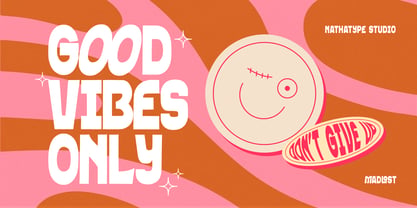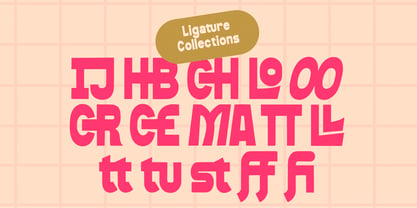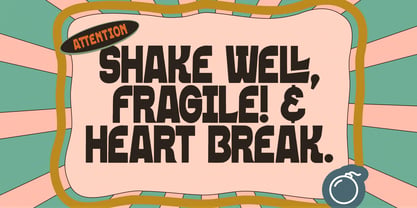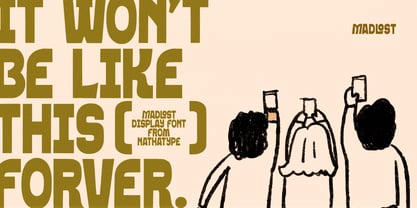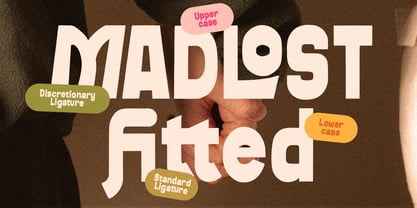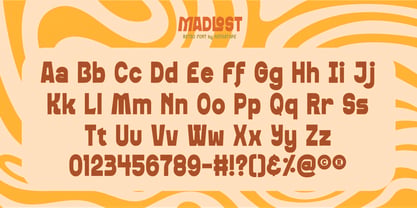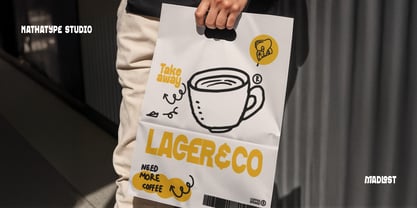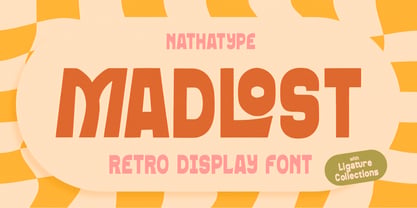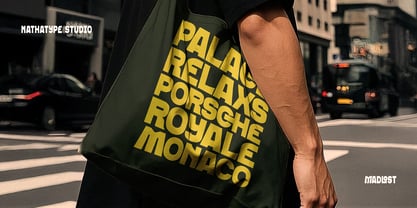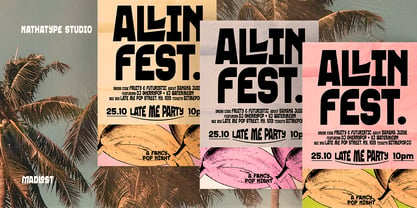
Madlost
von Nathatype
Die Schriftfamilie Madlost wurde von Donis Miftahudin entworfen und von Nathatype veröffentlicht. Madlost enthält 1 Stile. Mehr über diese Familie
Madlost is a retro-inspired display font. Crafted with a fairly thick weight and relatively low contrast, this font delivers a strong, confident appearance while maintaining a smooth, cohesive look. Madlost captures the essence of classic retro lettering and reimagines it for modern creative use, making it a perfect choice for designers who want nostalgic style with contemporary versatility. In addition, enjoy the features here. Features: Ligatures Multilingual Supports PUA Encoded Numerals and Punctuations Madlost fits in logos, quotes, branding, posters, and many more designs. Find out more ways to use this font by taking a look at the font preview. Thanks for purchasing our fonts. Hopefully, you have a great time using our font. Feel free to contact us anytime for further information or when you have trouble with the font. Thanks a lot and happy designing.